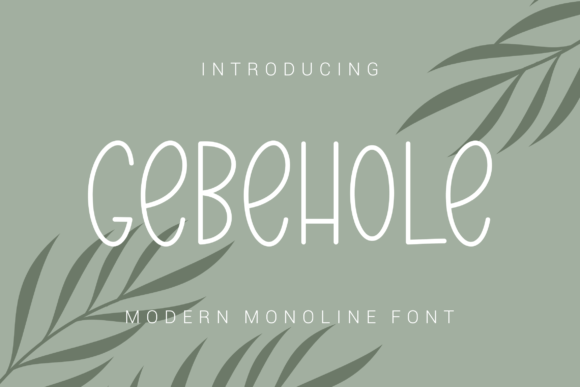
Introducing Gebehole Font: The Ultimate Handwritten Font for Your Branding Projects
In the world of typography, a well-crafted font can make all the difference in creating a lasting impression. For designers and crafters looking for a natural and authentic handwritten font, Gebehole is an excellent choice. This versatile font is suitable for a wide range of branding projects, from logos and t-shirt printing to esports and more. In this article, we’ll dive into the features and benefits of Gebehole Font and explore how it can elevate your design game.
What is Gebehole Font?
Gebehole Font is a beautifully crafted handwritten font that exudes a sense of natural elegance. Its authentic feel makes it perfect for designers seeking to add a personal touch to their projects. The font’s unique character set and flowing strokes create a distinctive look that’s both modern and timeless.
Key Features of Gebehole Font
- Natural and Authentic: Gebehole Font boasts a genuine handwritten feel that’s perfect for creating a personal connection with your audience.
- Versatile: This font is suitable for a wide range of branding projects, from logos and t-shirts to esports and more.
- Unique Character Set: Gebehole Font features a distinctive character set that sets it apart from other fonts.
- Easy to Read: The font’s clear and flowing strokes make it easy to read, even at smaller sizes.
Use Cases for Gebehole Font
Gebehole Font is an incredibly versatile font that can be used in various design projects. Here are some ideas to get you started:
- Logo Design: Create a memorable logo that stands out with Gebehole Font’s unique character set.
- T-Shirt Printing: Add a personal touch to your t-shirt designs with Gebehole Font’s authentic handwritten feel.
- Esports: Gebehole Font’s modern look makes it perfect for esports branding, jerseys, and more.
- Packaging Design: Use Gebehole Font to create eye-catching packaging designs that reflect your brand’s personality.
Benefits of Using Gebehole Font
- Unique Brand Identity: Gebehole Font helps you create a distinctive brand identity that sets you apart from competitors.
- Emotional Connection: The font’s authentic handwritten feel creates an emotional connection with your audience, making your brand more relatable.
- Flexibility: Gebehole Font is suitable for various design projects, making it a valuable addition to your font library.
Tips for Using Gebehole Font Effectively
- Pair with Other Fonts: Experiment with pairing Gebehole Font with other fonts to create a unique visual hierarchy.
- Adjust Font Size: Adjust the font size to suit your design needs, ensuring Gebehole Font remains clear and legible.
- Color Scheme: Choose a color scheme that complements Gebehole Font’s natural and authentic feel.
Gebehole Font is an exceptional handwritten font that offers a natural and authentic feel perfect for various branding projects. Its versatility, unique character set, and ease of use make it an excellent addition to any designer’s font library. By incorporating Gebehole Font into your design projects, you’ll create a lasting impression and establish a strong brand identity. So why wait? Explore the possibilities of Gebehole Font today and take your designs to the next level!